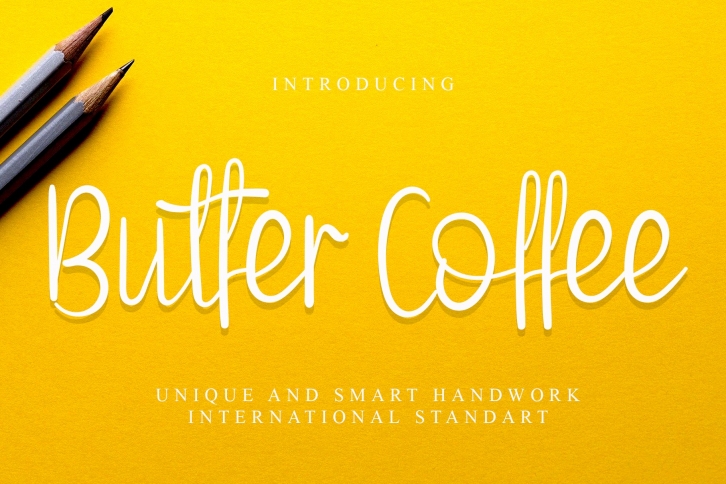
Butter Coffee is a gorgeous font that was realeased on February 13, 2022. The font can be used in many style contexts and design environments. Perfect for invitations, magazines, websites, logos, and more! It was designed by Giart Studios and the file size is 5.15 MB. Thanks for checking out this font!